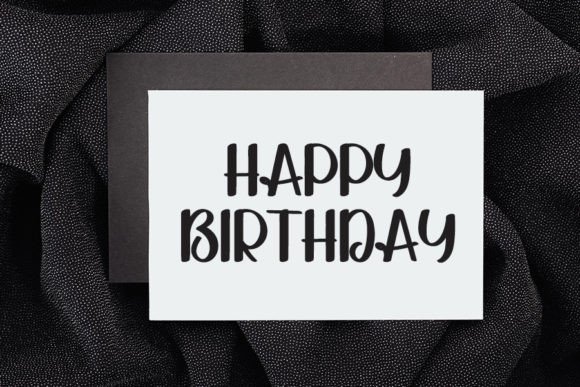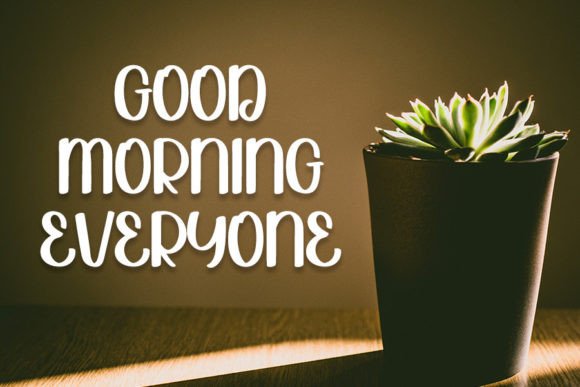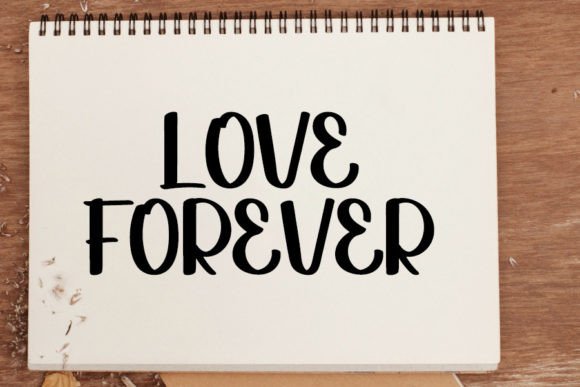
Diving Font: Elevate Your Creative Projects with a Chic and Trendy Handwritten Style
Are you a designer, crafter, or DIY enthusiast looking for a font that can add a touch of elegance and sophistication to your creative projects? Look no further than Diving Font, a beautiful and trendy handwritten font that’s perfect for a wide range of applications. In this article, we’ll take a closer look at the features and benefits of Diving Font, and explore how you can use it to turn your creative ideas into stunning works of art.
What is Diving Font?
Diving Font is a chic and trendy handwritten font that’s designed to add a personal touch to your creative projects. With its elegant and flowing script, this font is perfect for a wide range of applications, from social media graphics and Instagram posts to calligraphy scripts and DIY projects. Whether you’re a professional designer or a crafty DIY enthusiast, Diving Font is a versatile and stylish choice that’s sure to impress.
Key Features of Diving Font
So what makes Diving Font so special? Here are just a few of its key features:
- Handwritten style: Diving Font has a beautiful, handwritten style that’s perfect for adding a personal touch to your creative projects.
- Trendy and modern: This font is designed to be trendy and modern, making it perfect for designers and crafters who want to stay on top of the latest styles and trends.
- Versatile: Diving Font is a versatile font that can be used for a wide range of applications, from social media graphics to calligraphy scripts and DIY projects.
- Elegant and sophisticated: With its elegant and flowing script, Diving Font is perfect for designers and crafters who want to add a touch of elegance and sophistication to their creative projects.
How to Use Diving Font
So how can you use Diving Font in your creative projects? Here are just a few ideas to get you started:
- Instagram graphics: Use Diving Font to create stunning Instagram graphics that will help you stand out from the crowd.
- Calligraphy scripts: Diving Font is perfect for calligraphy scripts, and can be used to add a touch of elegance and sophistication to your DIY projects.
- DIY projects: Whether you’re working on a craft project or a DIY home decor project, Diving Font is a great choice for adding a personal touch.
- Social media graphics: Use Diving Font to create social media graphics that will help you connect with your audience and build your brand.
Tips for Getting the Most Out of Diving Font
Here are just a few tips for getting the most out of Diving Font:
- Experiment with different colors and textures: Diving Font looks great in a variety of colors and textures, so don’t be afraid to experiment and find the look that works best for your project.
- Use it sparingly: While Diving Font is a beautiful font, it can be overwhelming if used too much. Use it sparingly to add a touch of elegance and sophistication to your project.
- Pair it with other fonts: Diving Font pairs well with a variety of other fonts, so don’t be afraid to experiment and find the perfect combination for your project.
Diving Font is a beautiful and trendy handwritten font that’s perfect for designers, crafters, and DIY enthusiasts who want to add a touch of elegance and sophistication to their creative projects. With its elegant and flowing script, this font is versatile and stylish, and can be used for a wide range of applications. Whether you’re working on a social media graphic, a calligraphy script, or a DIY project, Diving Font is a great choice for turning your creative ideas into stunning works of art.